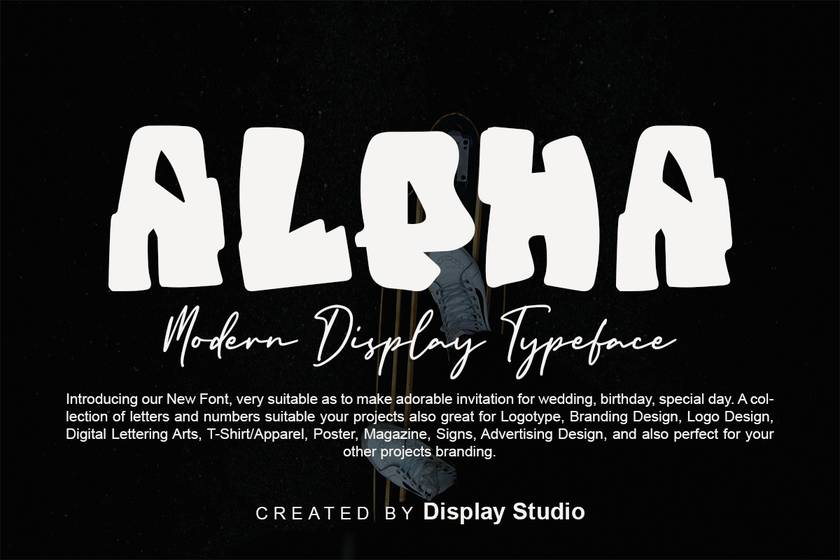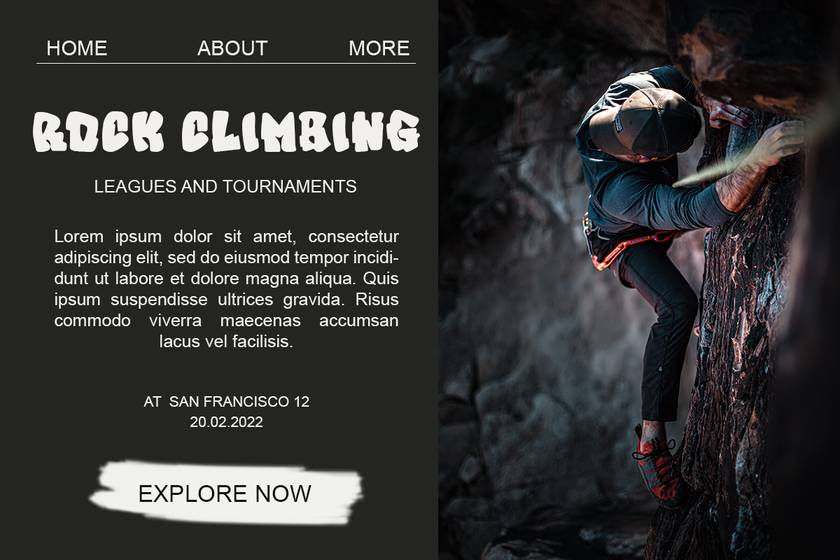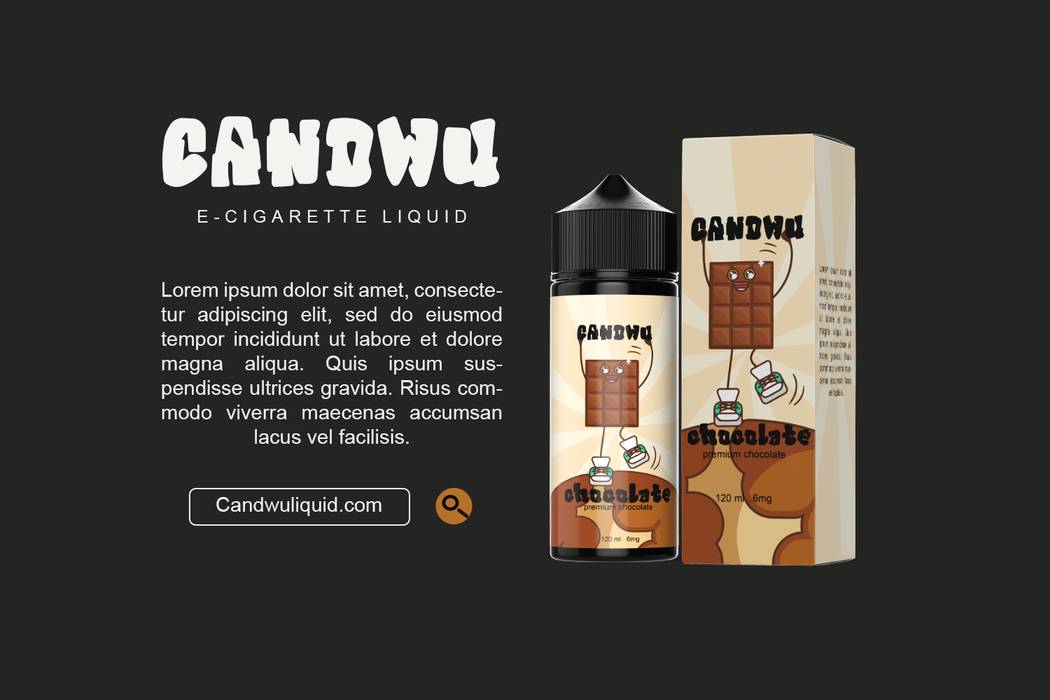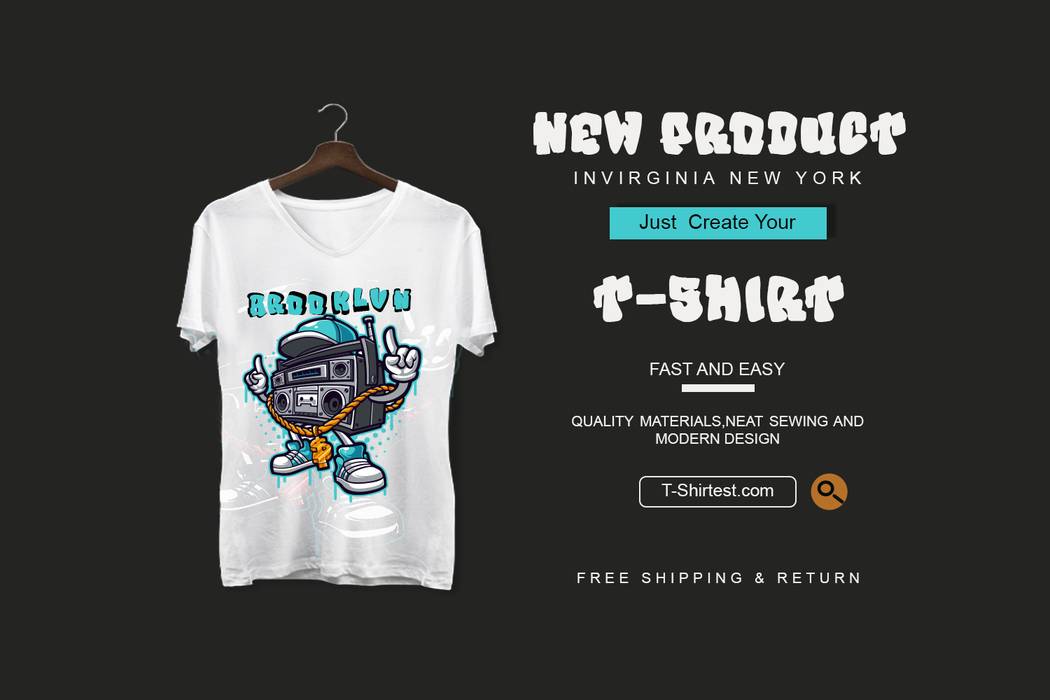
Alpha Font is a bold and playful sans serif typeface with irregular, chunky letterforms that give it a hand-crafted, whimsical feel. Its lively shapes and solid weight make it ideal for fun, informal designs like posters, children's books, or unique branding that seeks to stand out with personality and energy. This font works best in headlines and display settings where a strong, creative impression is needed.
Alpha Font
About Alpha Font
| Font family | Alpha Font |